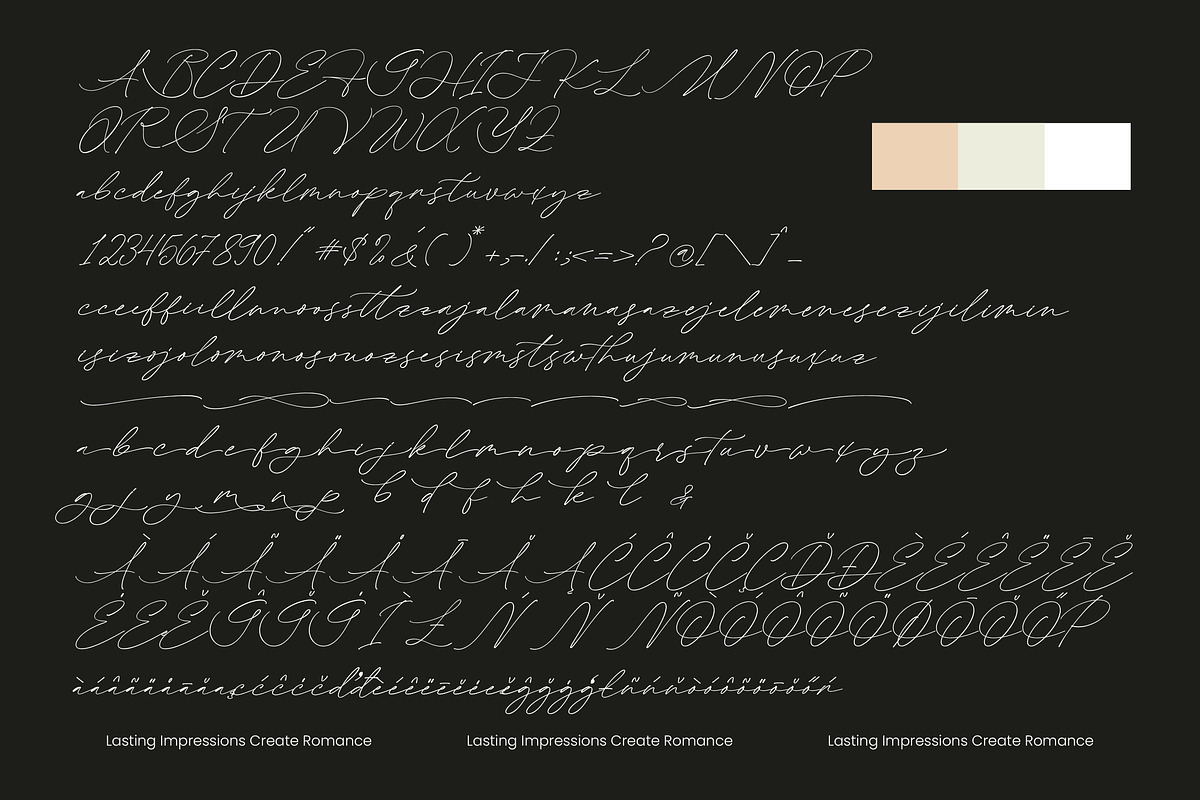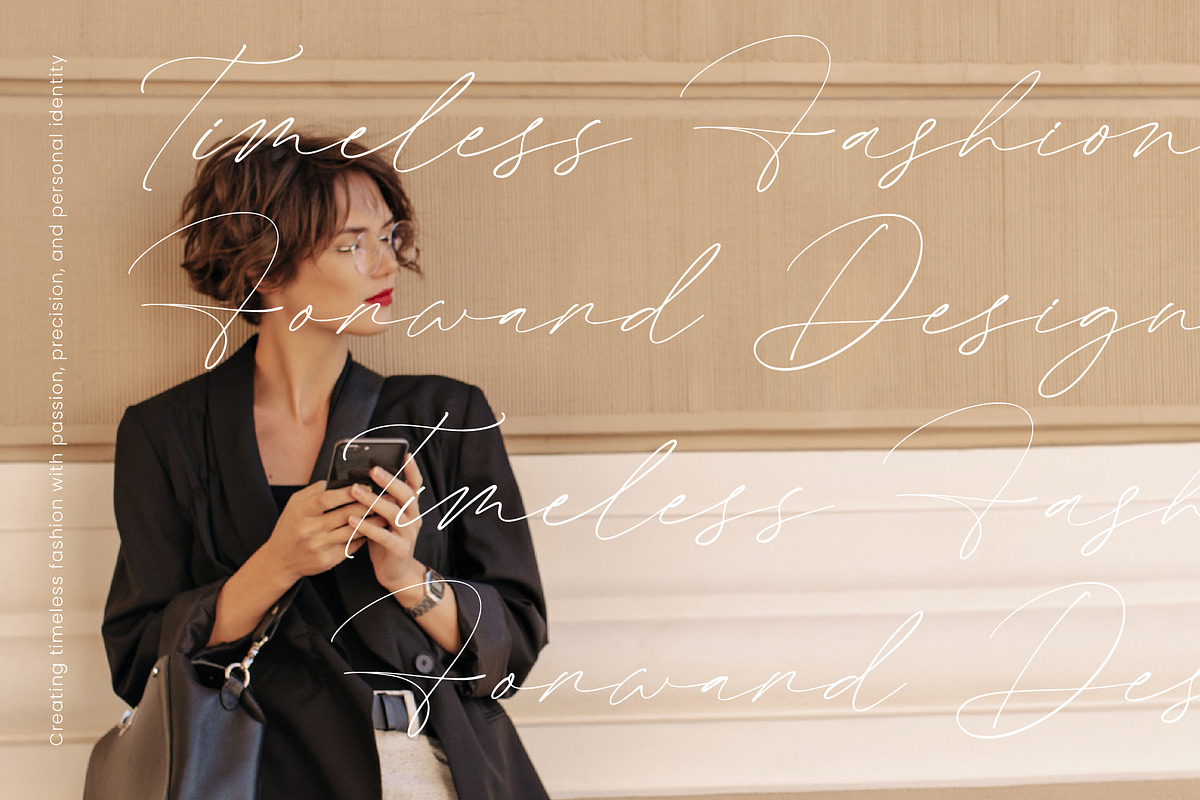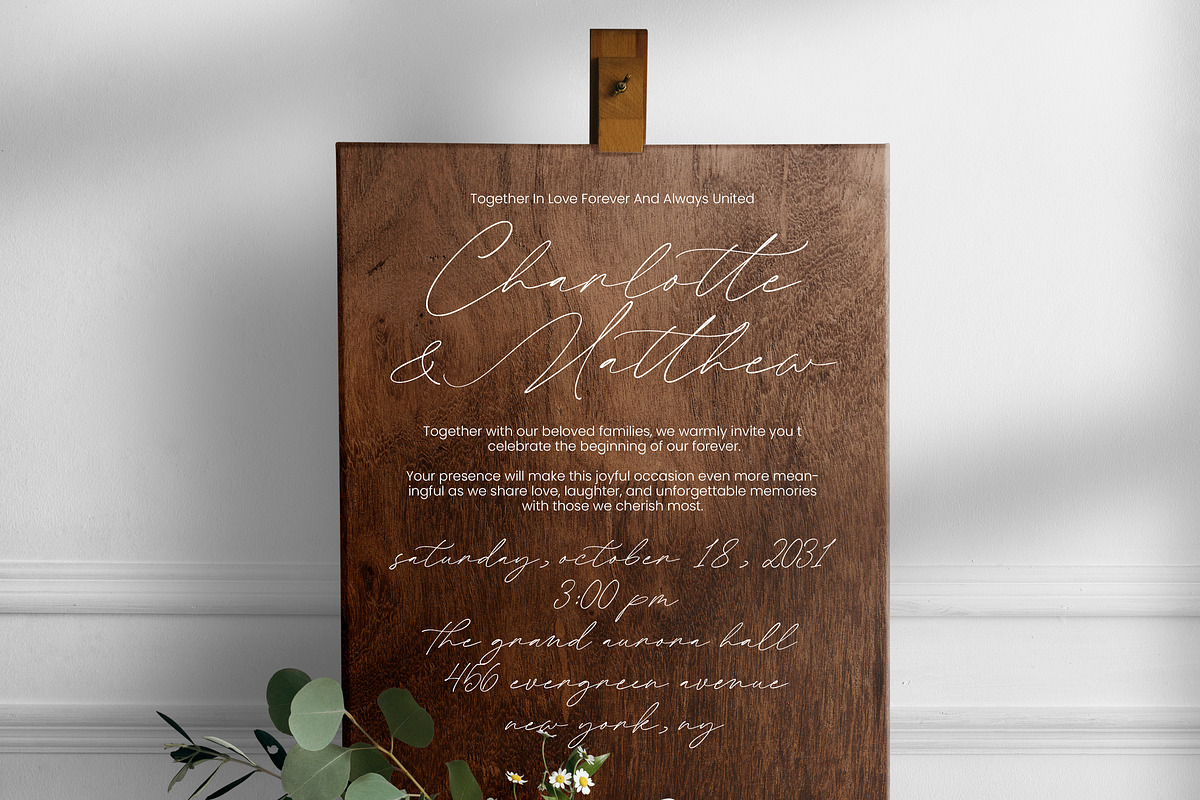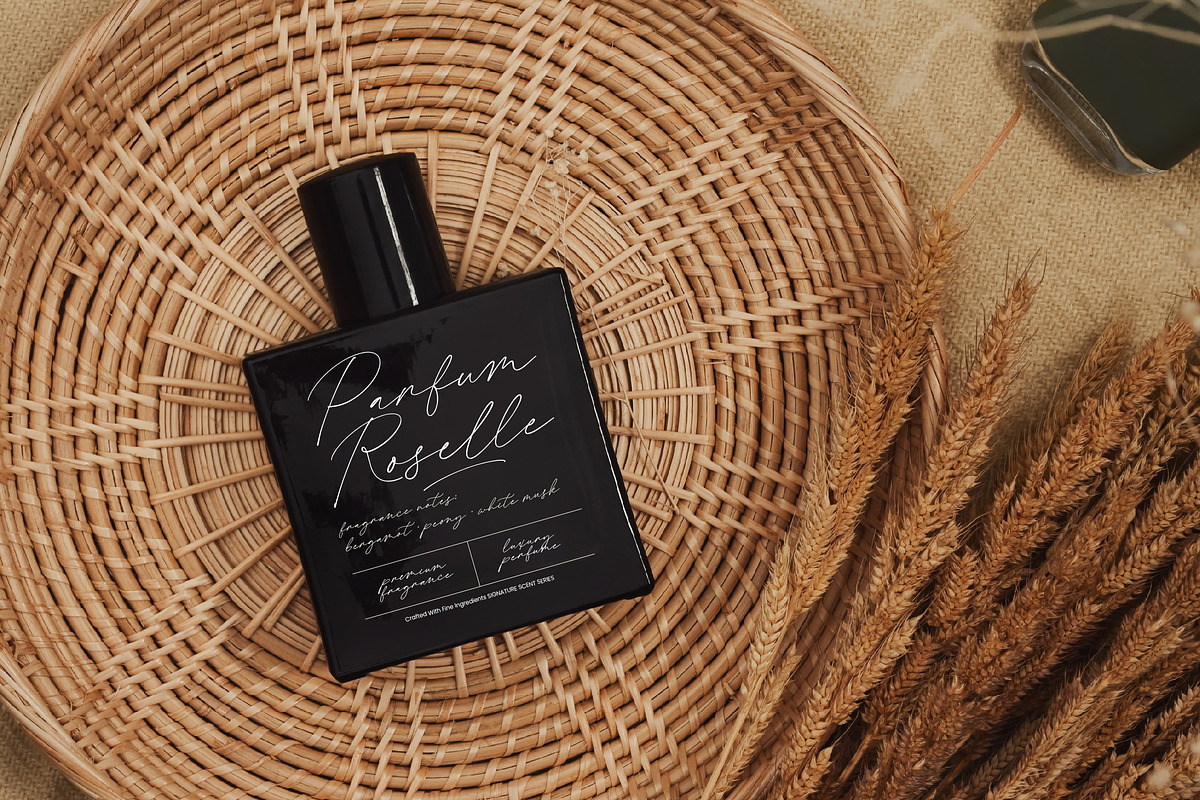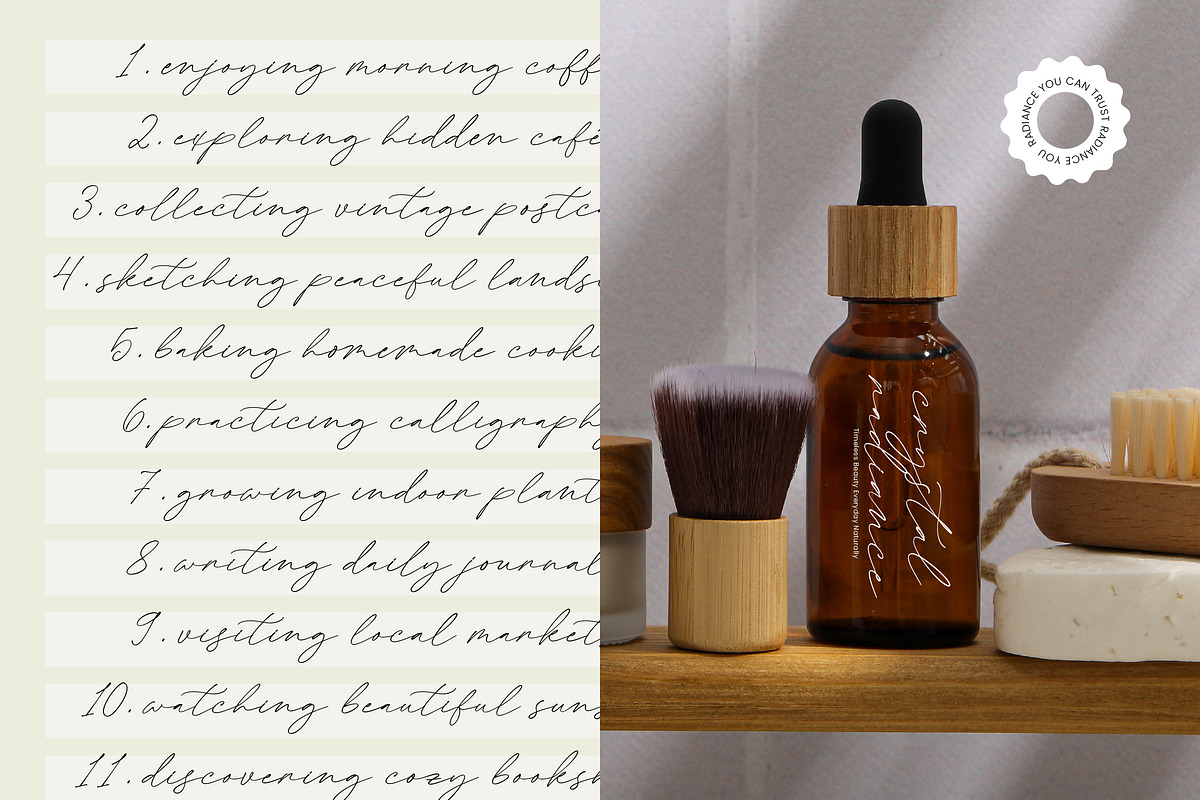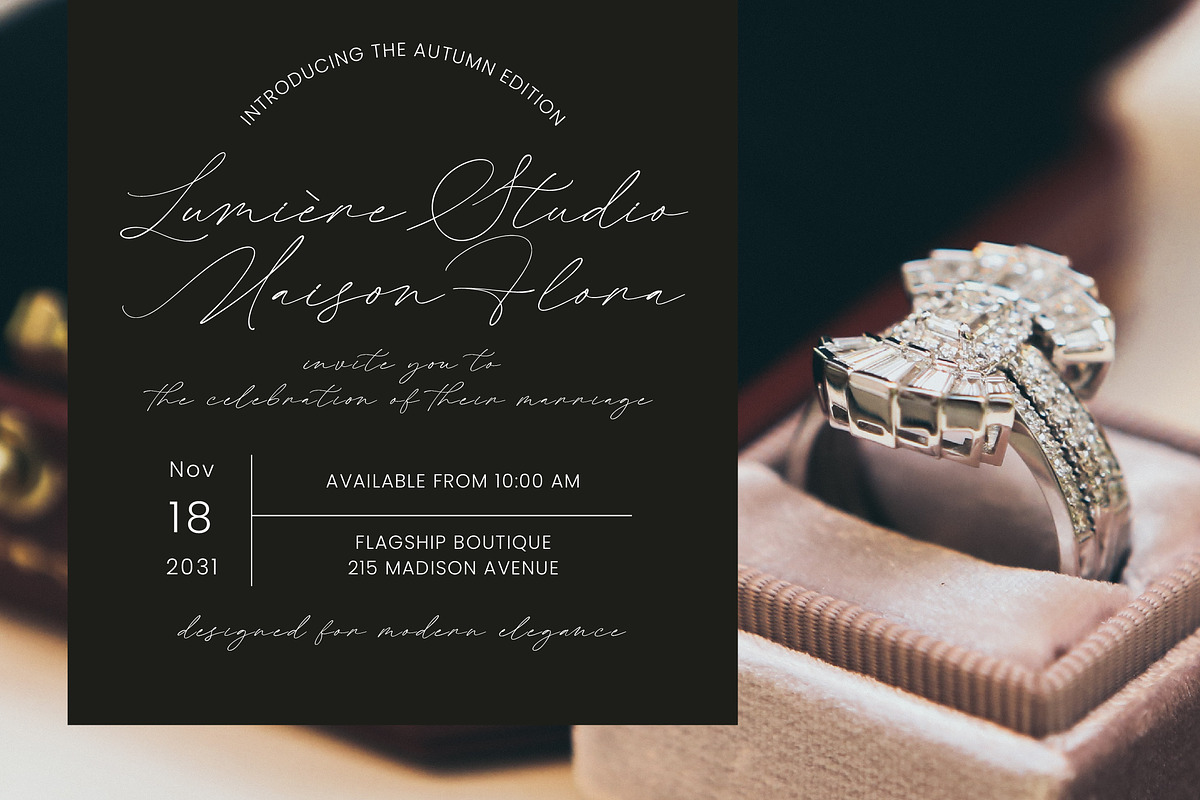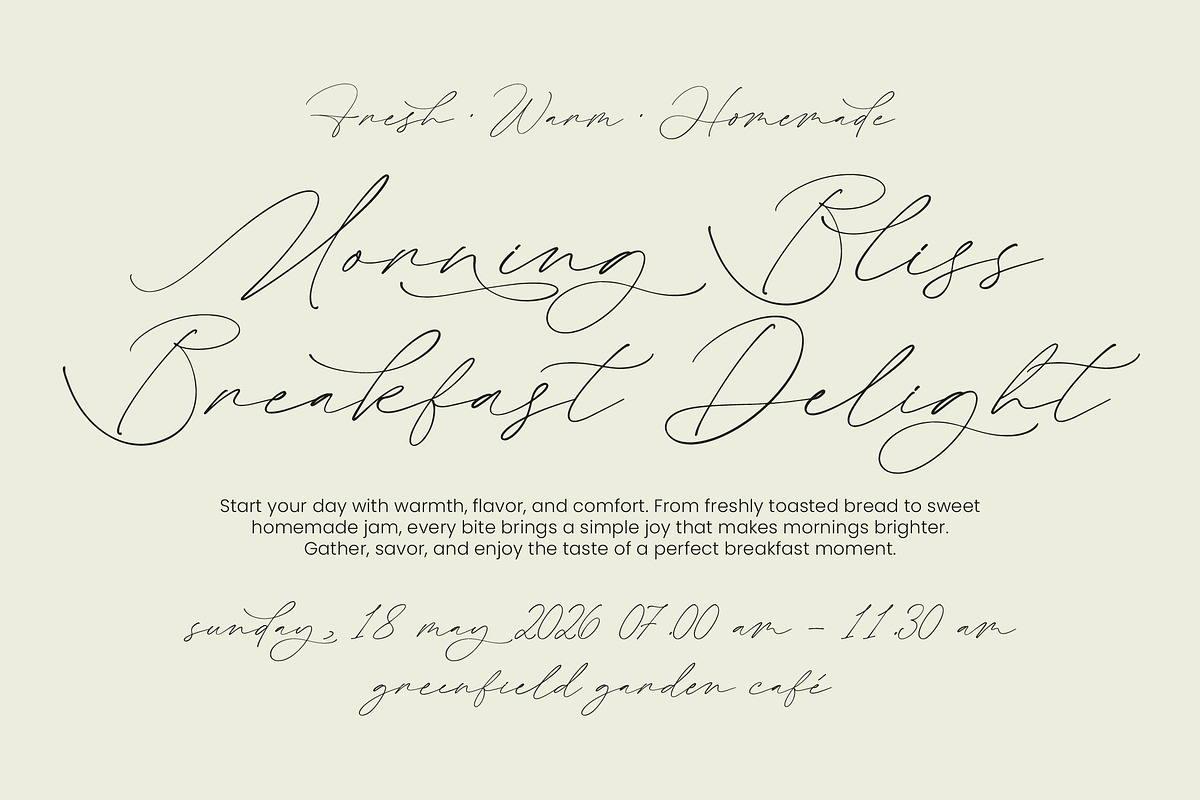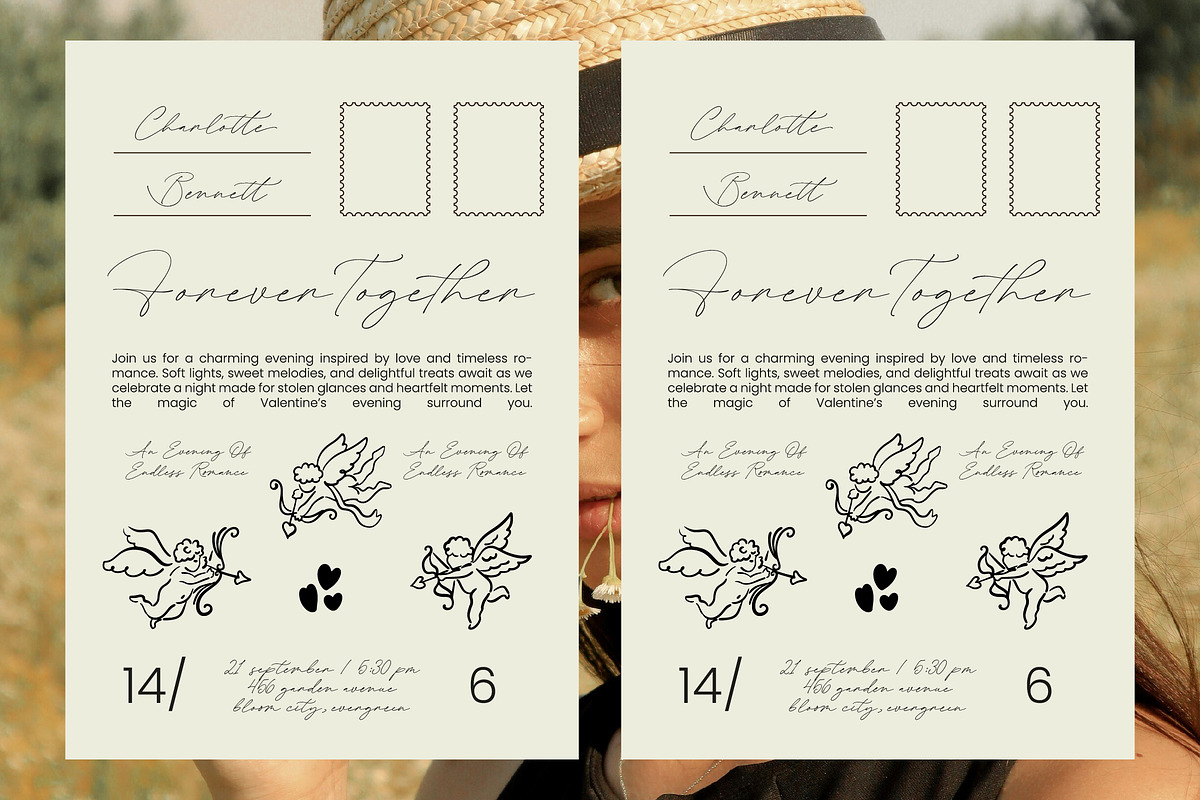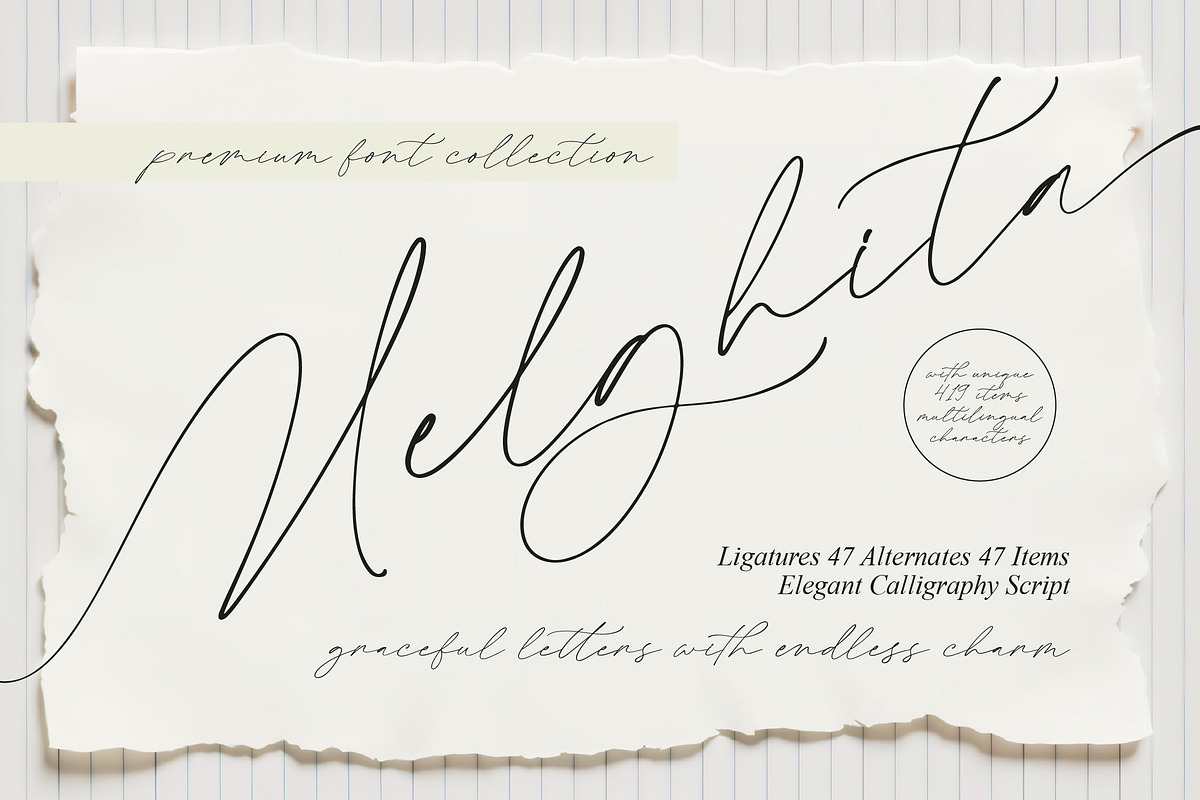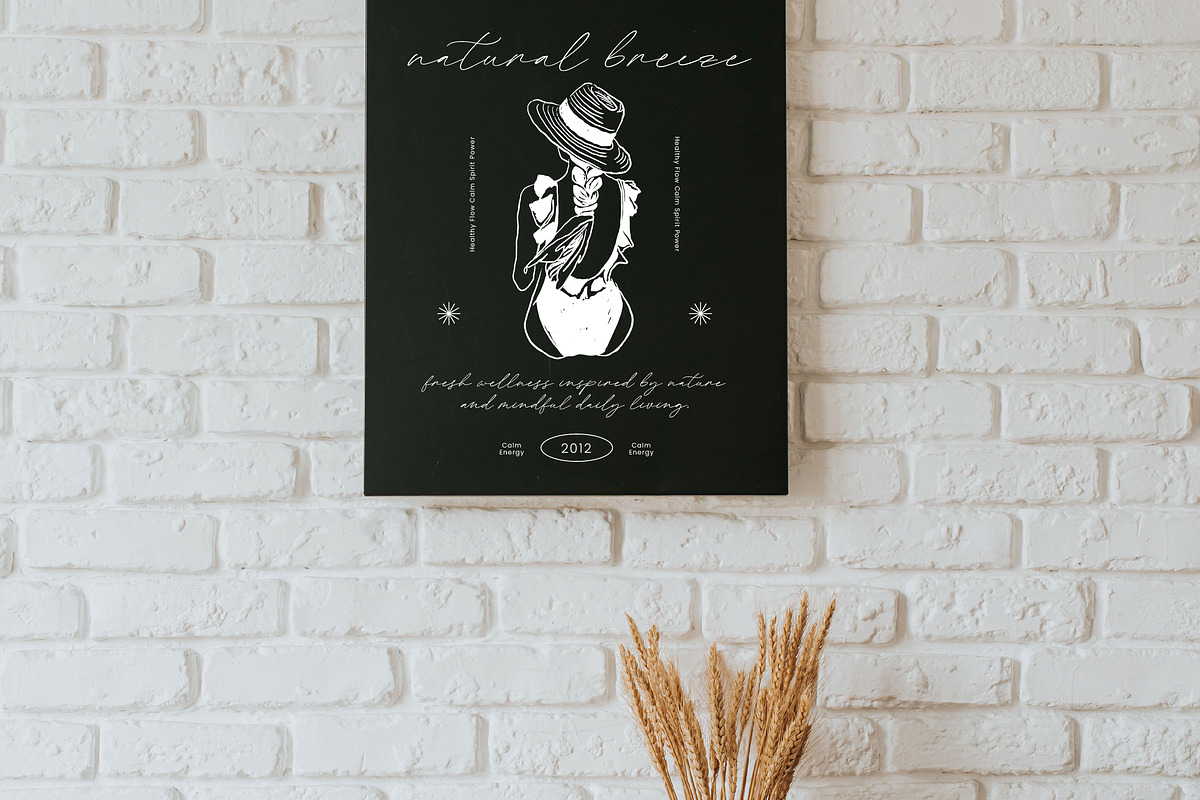
Melghita Elegant Calligraphy Script
Melghita - Elegant Calligraphy Script
Elevate your creative vision with the timeless sophistication of a premium typeface designed for modern excellence. Melghita - Elegant Calligraphy Script embodies a fluid aesthetic that balances high-contrast strokes with graceful movement. This font captures the essence of organic handwriting, offering a bespoke feel that is both romantic and authoritative. It is an essential tool for creators who demand a refined visual identity and artistic flair.
Experience unparalleled versatility and technical precision with a comprehensive set of 47 ligatures and 47 alternates. With its extensive multilingual support, Melghita - Elegant Calligraphy Script adapts seamlessly across global markets, making it incredibly versatile for international projects. The inclusion of over 400 unique characters ensures that every layout remains dynamic and distinctive, providing professional-grade typography for any multilingual design challenge.
Perfect for high-end designers seeking a touch of luxury and refinement, this script excels in diverse professional environments. Melghita - Elegant Calligraphy Script is the ideal choice for luxury branding, wedding invitations, premium packaging, and high-fashion editorial design. Whether you are crafting a chic logo or sophisticated social media graphics, its endless charm provides a polished finish that resonates deeply with upscale audiences.
Transform ordinary text into a captivating visual narrative with ease and commercial confidence. Melghita - Elegant Calligraphy Script provides the expressive power needed to make any brand stand out in a competitive market. By blending classic calligraphy with modern design sensibilities, this font ensures your creative portfolio remains timeless and impactful. Invest in a font collection that defines elegance and commercial success.